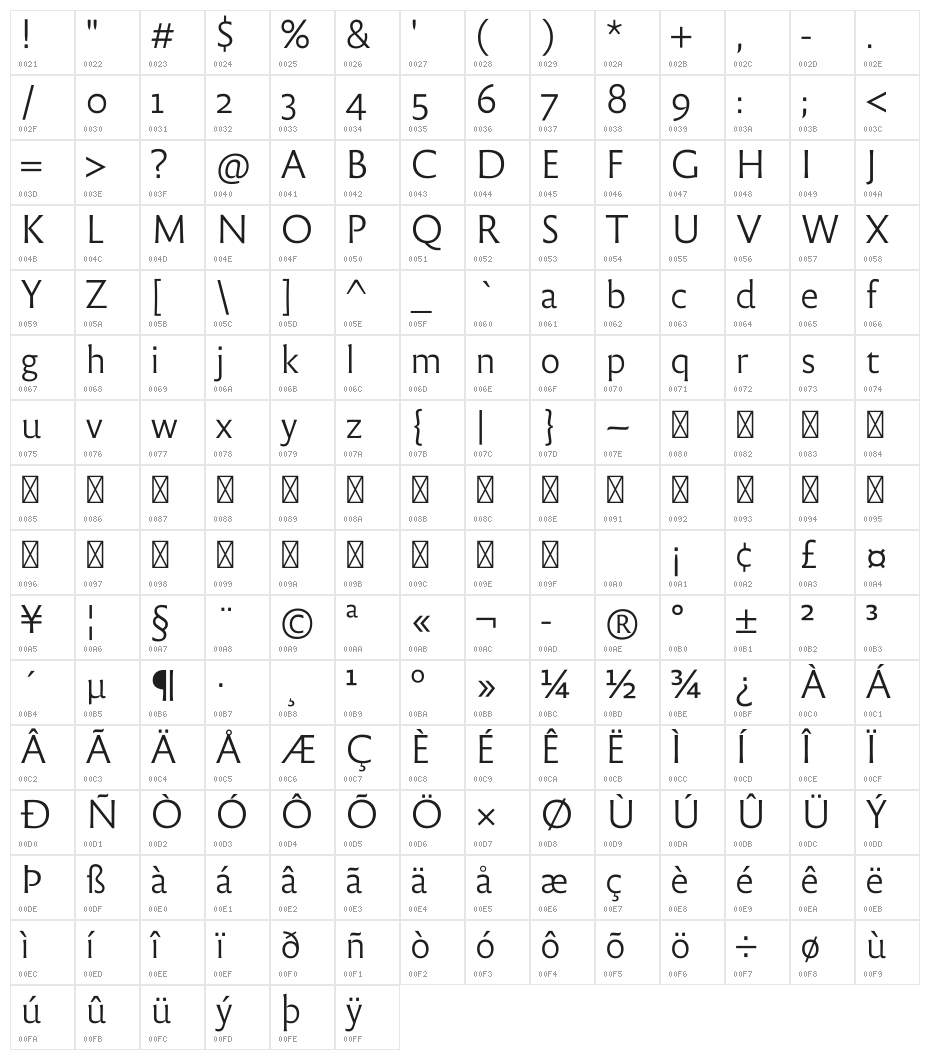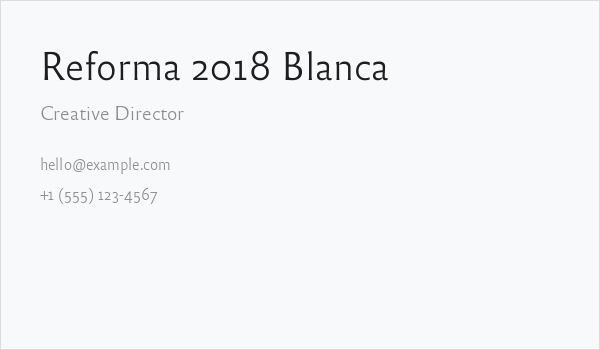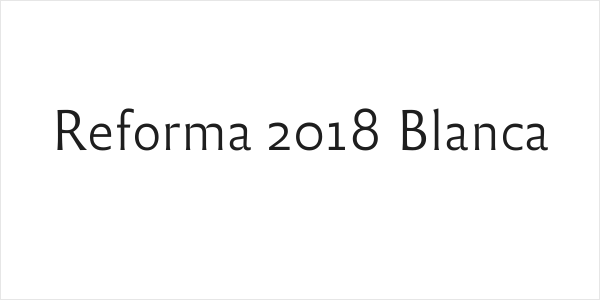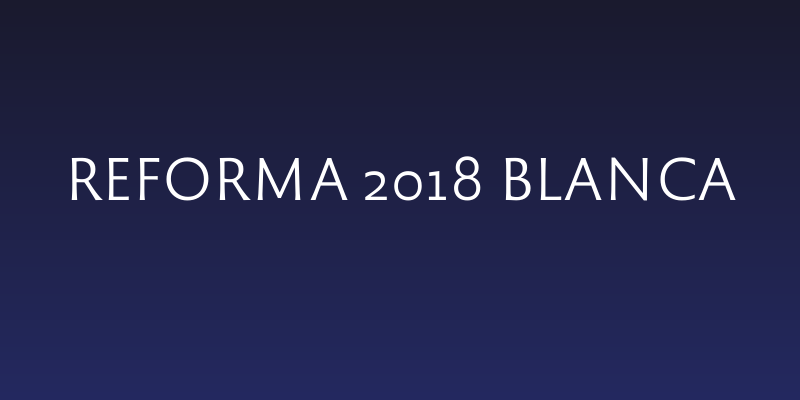
Reforma 2018 Blanca Font
Reforma 2018 Blanca Description
This font features a clean and modern design with a sans-serif style, characterized by its sleek and elegant letterforms. The uppercase letters are tall and slightly condensed, providing a sense of sophistication and professionalism. The lowercase letters maintain a consistent height, contributing to a harmonious and balanced appearance. The numerals are clear and legible, making them suitable for a variety of applications. Special characters are well-integrated, ensuring versatility in design projects. The overall aesthetic is contemporary, making it ideal for modern branding and editorial design.
| Proposed Projects | Ideal for branding, editorial design, web design, and corporate materials. |